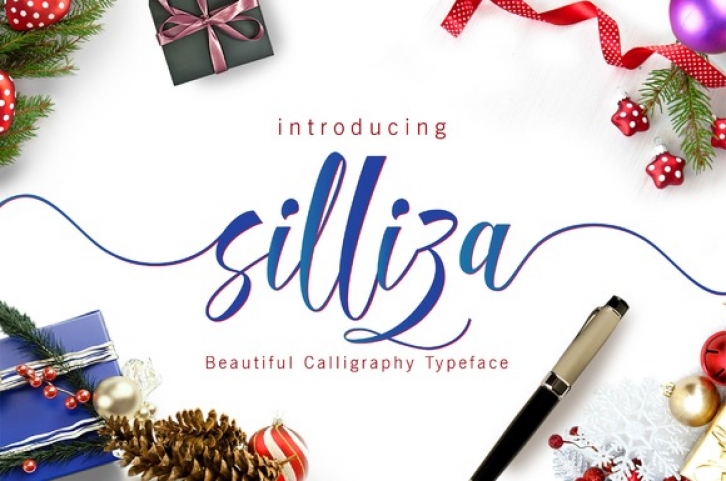
Silliza Script is a modern calligraphy typeface which can be used for various purposes such as: logos, posters, badges, headlines, invitations and much more!